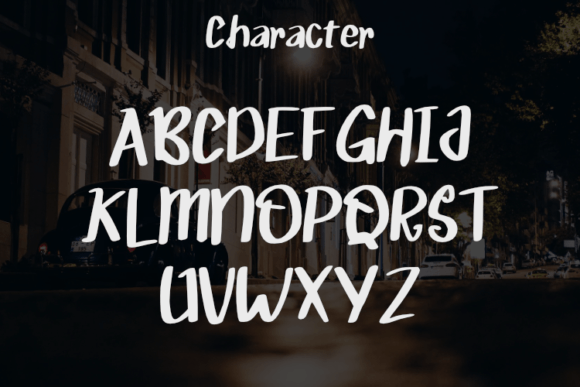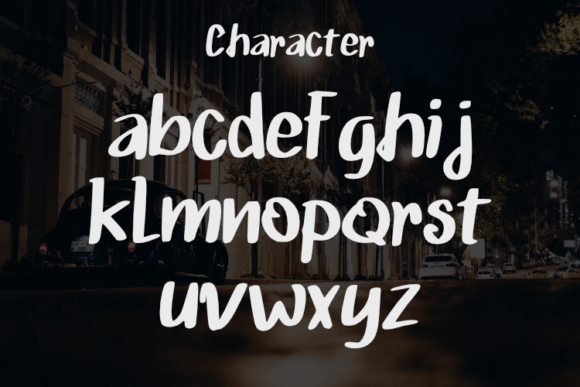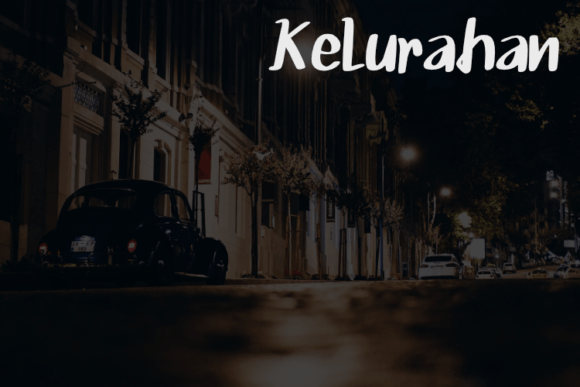
Kelurahan Font
About Kelurahan Font
Kelurahan is a stylish and modern script typeface that offers a simple yet sophisticated style. With its clean lines and contemporary appearance, Kelurahan is well-suited for a variety of design projects. Whether you’re working on a logo, book or movie design titles, fashion branding, magazine layouts, clothing labels, or quotes, Kelurahan brings an elegant and luxurious touch to your creations.
The font’s simplicity makes it versatile and adaptable, allowing it to complement different design aesthetics. Its modern look aligns well with current design trends, making it a suitable choice for projects that aim to convey a sense of style and sophistication.
Consider incorporating Kelurahan into your next design endeavor to infuse it with a touch of modern elegance. Its clean and well-crafted characters can contribute to creating a visual identity that is both stylish and memorable. Experiment with different applications to explore the full potential of Kelurahan in expressing the essence of your project.